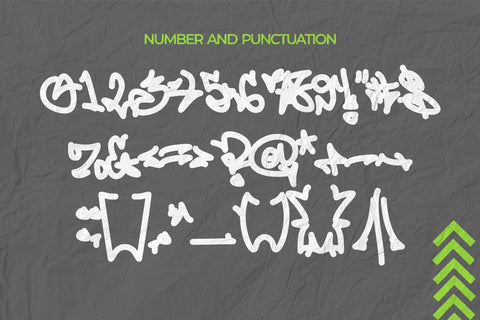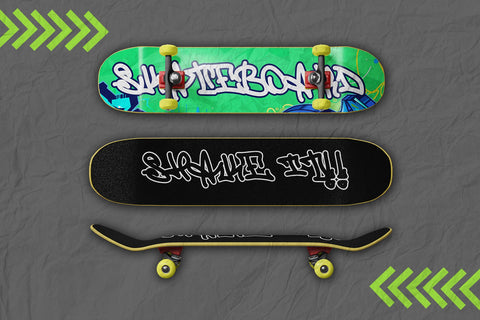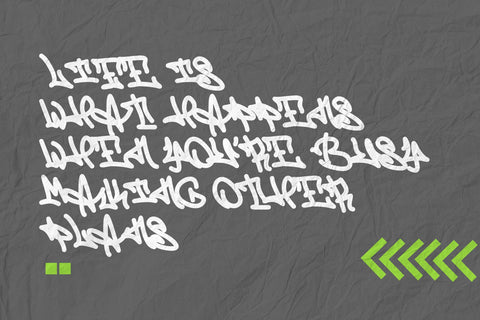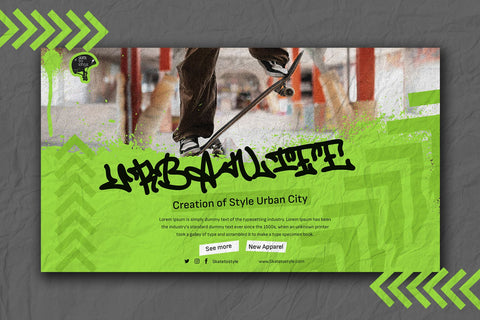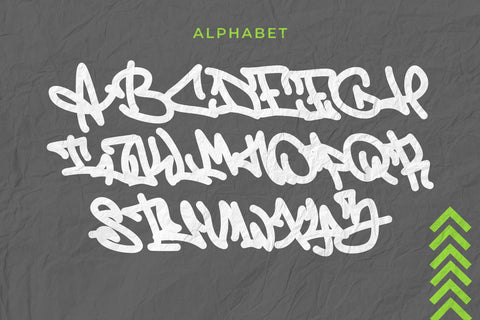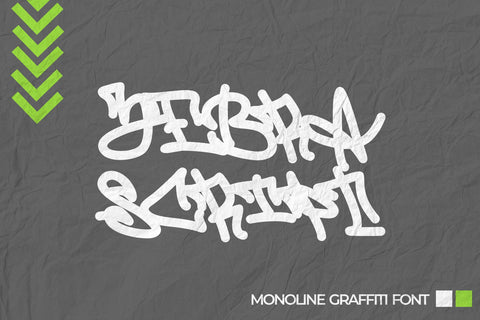
Zebra Script - Monoline Graffiti Font
"Zebra Script" is a monoline graffiti font that combines the characteristics of a natural handwritten style with the uniform stroke width typical of monoline fonts. This fusion results in a unique typographic aesthetic that exudes spontaneity and urban flair.
- Graffiti Characters looks